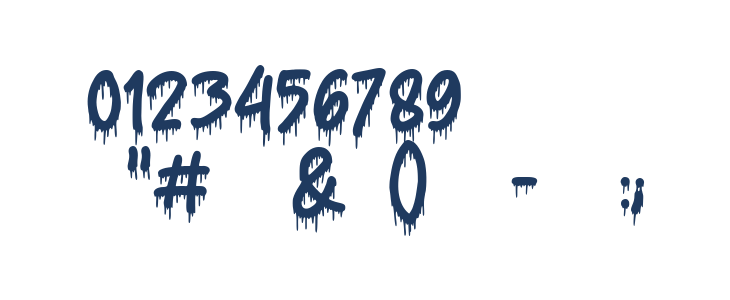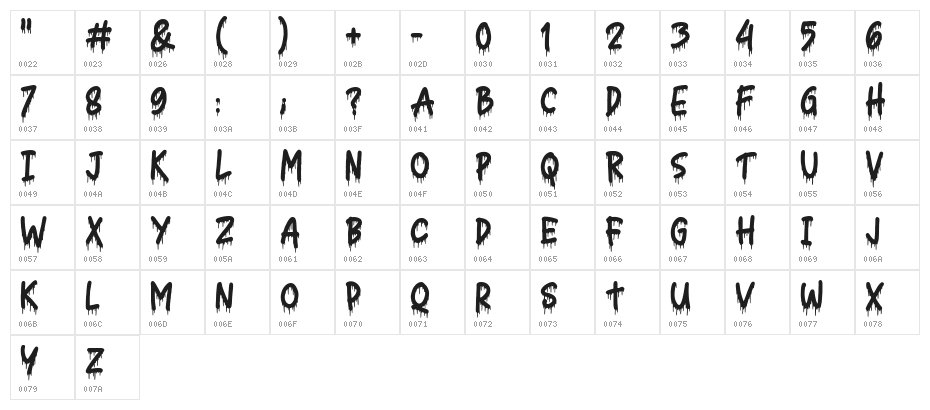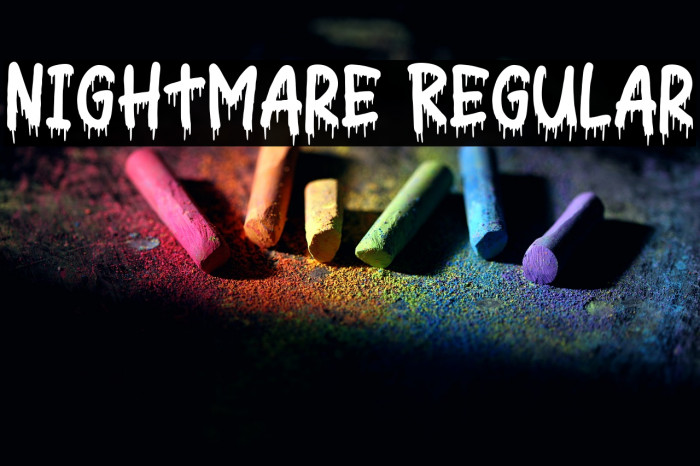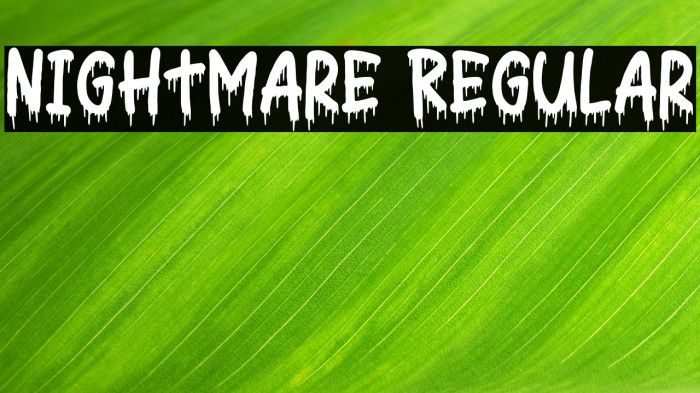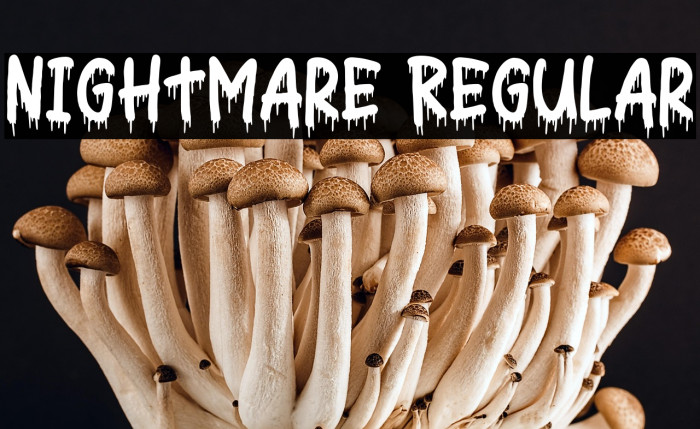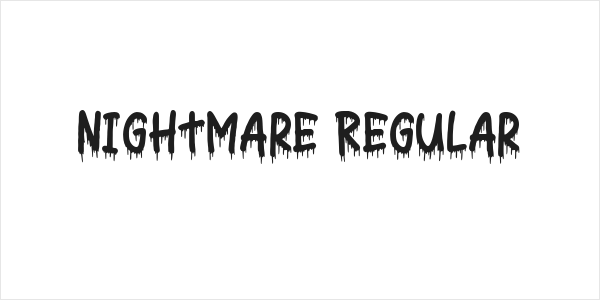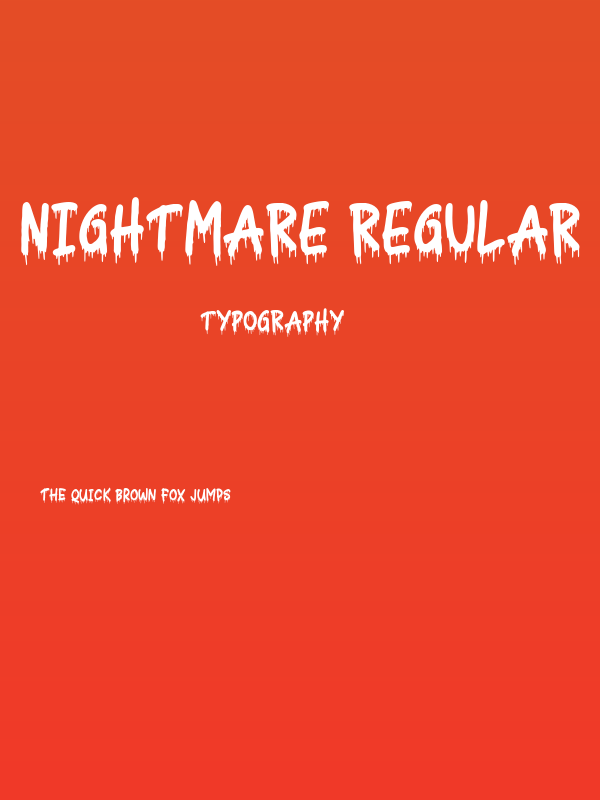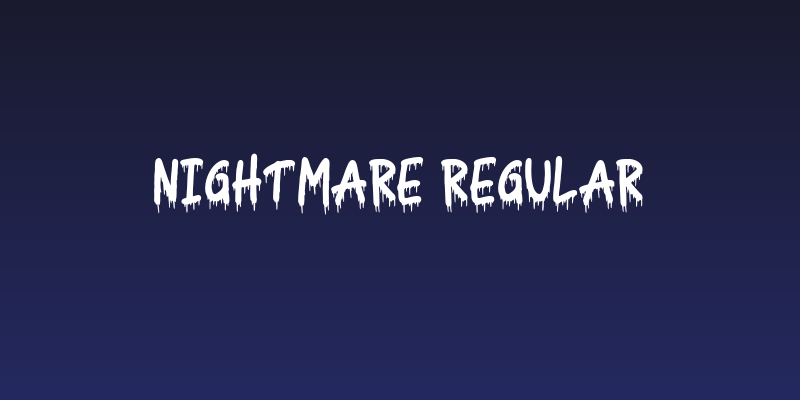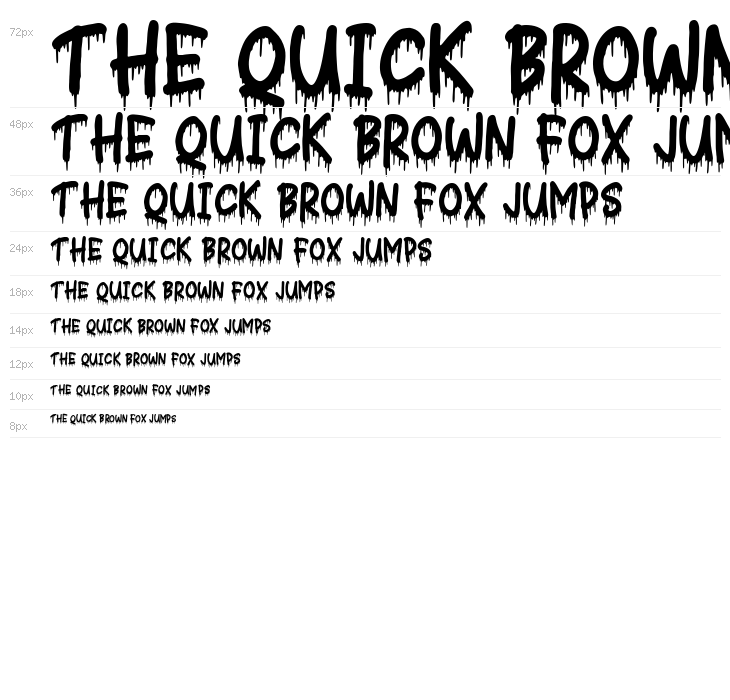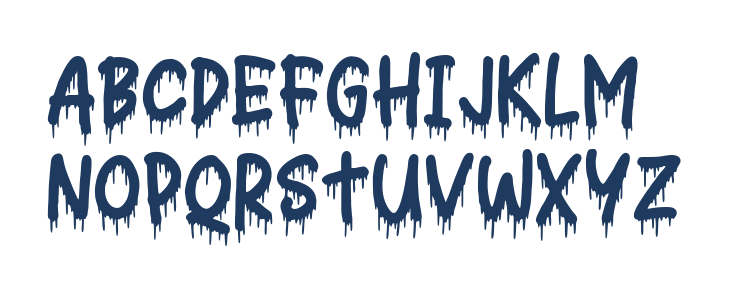
Nightmare Regular Font
Nightmare Regular Description
This font features a spooky, dripping effect that gives the impression of melting or oozing letters. The uppercase and lowercase characters maintain a consistent style, with each letter appearing as if it is dripping with a liquid substance. The numbers and special characters follow the same design, enhancing the eerie and unsettling aesthetic. The bold strokes and irregular edges contribute to its horror-themed appearance, making it ideal for Halloween or horror-related projects. The font's unique style captures attention and evokes a sense of mystery and suspense.
| Proposed Projects | Ideal for Halloween invitations, horror movie posters, haunted house flyers, and spooky-themed merchandise. |